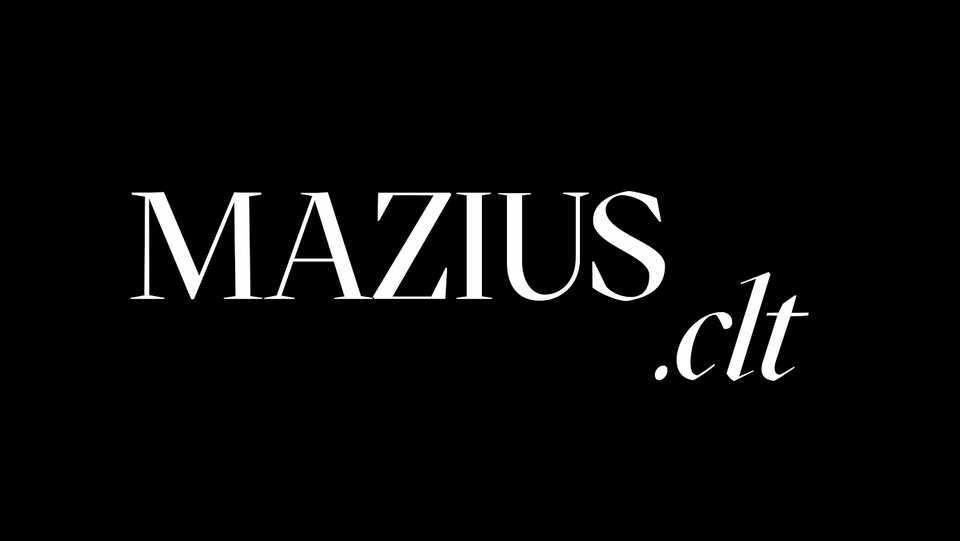
Download Mazius typeface, a high contrast serif font family with old style proportions and a strong calligraphic feel. Influenced by chancery hands, Mazius features two italics, each one with distinct personality.